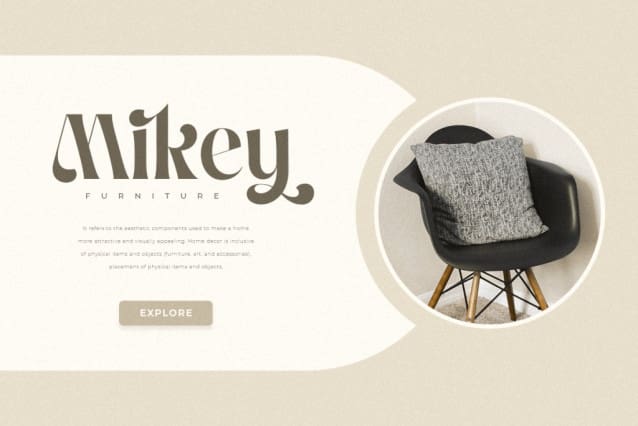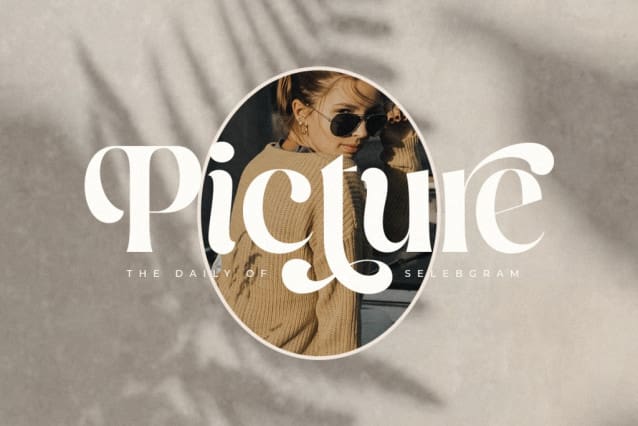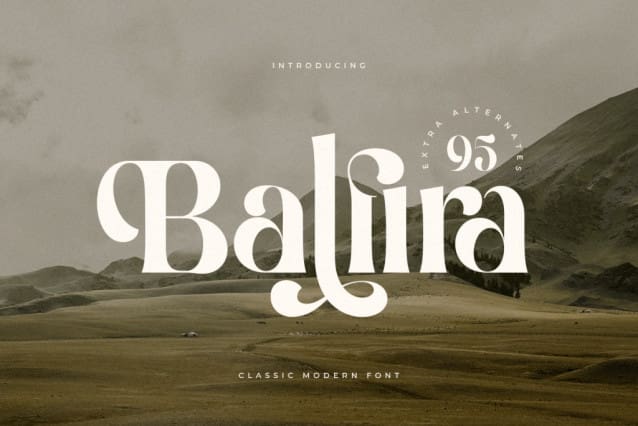
Balfira Font
Balfira Font, a new font that we created special for branding needs, with unique characters and awesome alternative characters are ready to add value of your brand. It so nice to leverage designer or product owner that need solutions to make their design look more beauty and modern. And specially for Salute font, We prepared any swash and any alternate characters to help you create unlimited variations for your creative needs.